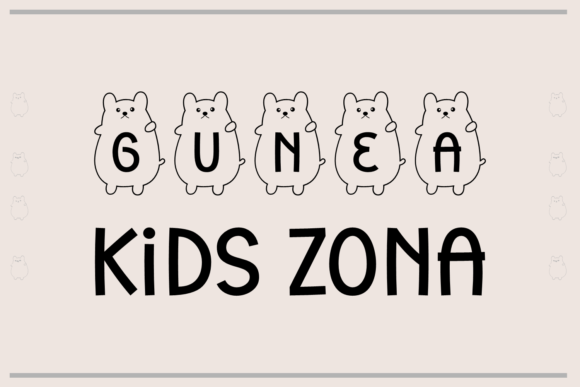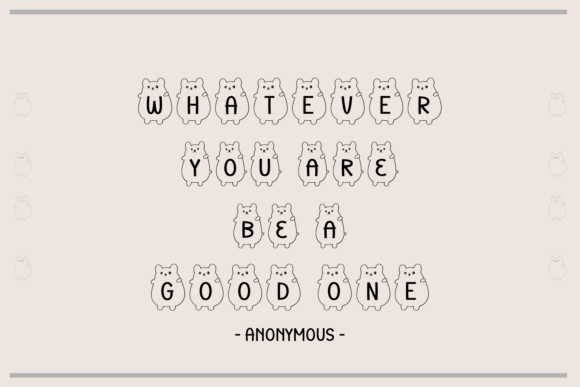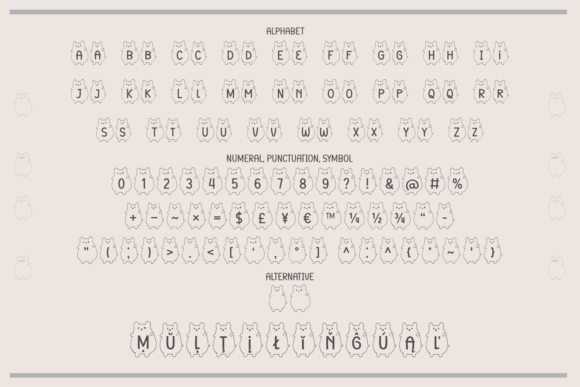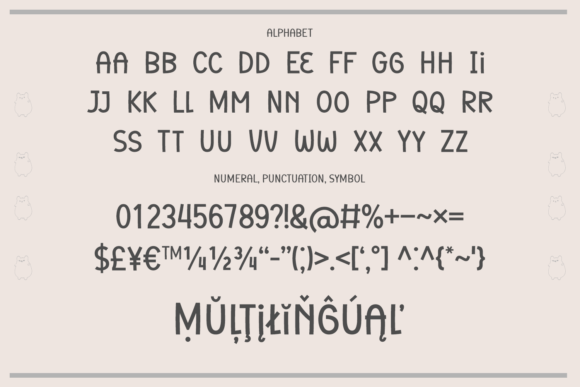
Meet Cute Gunea Font, a whimsical and adorable decorative font that features charming letters creatively illustrated on the backs of lovable guinea pigs. This delightful font is perfect for adding a touch of cuteness to your design projects, from children’s books to social media graphics, and everything in between.
As a designer, you understand the value of adding that special something to make your designs stand out. Cute Gunea Font is a valuable asset to your design toolkit, offering a unique and playful touch that’s sure to capture the hearts of your audience.
Cute Guinea Font Key Features
- Font Family: Cute Guinea Font is a sans-serif font family designed for digital use.
- Font Size and Resolution: Suitable for display at sizes ranging from 10 to 48 points, with optimal resolution at 72 dpi.
- Unique Characteristics: Features a distinctive, rounded design with subtle curves and a friendly feel, making it perfect for children’s books, magazines, and other publications targeting a young audience.
- Font Style Variations: Includes 4 font styles: Light, Regular, Medium, and Bold, offering flexibility for various design applications.
Cute Guinea Font Review
Overall, I think the Cute Guinea Font is a sweet addition to any design project. Here’s what I love about it:
- ✨ It’s playful and fun, making it perfect for children’s books, nursery decor, and other kid-friendly projects.
- ✨ The font is highly customizable, allowing designers to adjust the size, color, and style to fit their specific needs.
- ⚠️ The font may not be suitable for formal or professional projects, as it can come across as too cutesy or childish.
- ⚠️ The font can be quite dense, which may make it difficult to read in certain contexts.
- ⚠️ Some users have reported issues with the font’s kerning, which can affect the overall appearance of the text.
Overall, I think the Cute Guinea Font is a great choice for designers looking to add a playful touch to their projects. While it may not be suitable for every project, it’s definitely worth considering for the right design challenge.
Use the Cute Guinea Font for:
Children’s books and educational materials.
Party invitations and decorations.
Crafting and DIY projects.
Alternatives to Cute Guinea Font